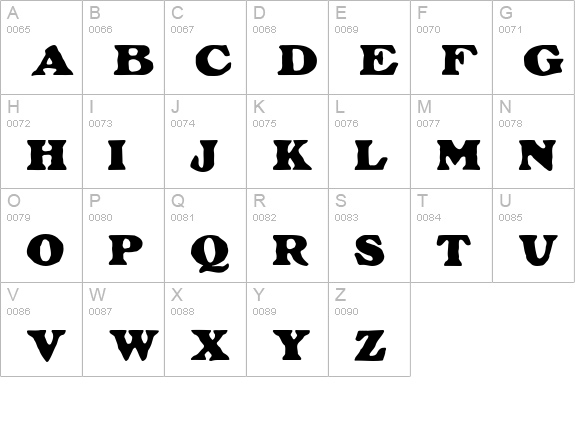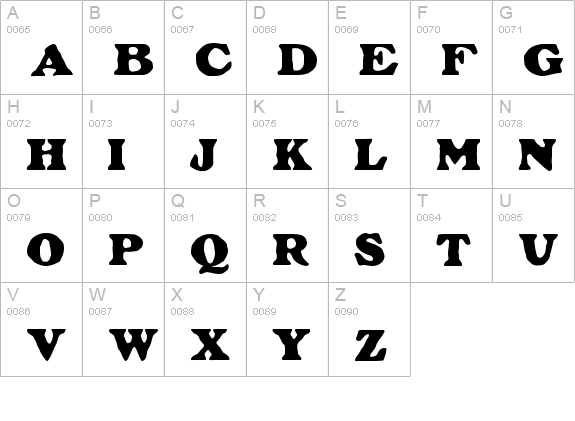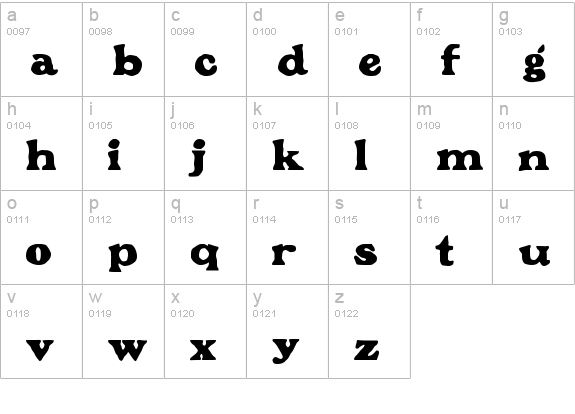
Plymouth MF is a sophisticated and elegant font that exudes a sense of modernity and versatility. With its sleek lines and balanced letterforms, this typeface is perfect for a wide range of design projects, from branding to editorial design. The clean and timeless aesthetic of Plymouth MF makes it a versatile choice for both print and digital applications. Whether you're designing a logo, poster, or website, this font will add a touch of sophistication to your project. What's even better is that Plymouth MF is available for free download at FontsMarket.com. This means that you can easily access this stylish font without breaking the bank. Don't miss out on the opportunity to elevate your designs with the timeless appeal of Plymouth MF. Download it today and see the difference it can make in your projects.